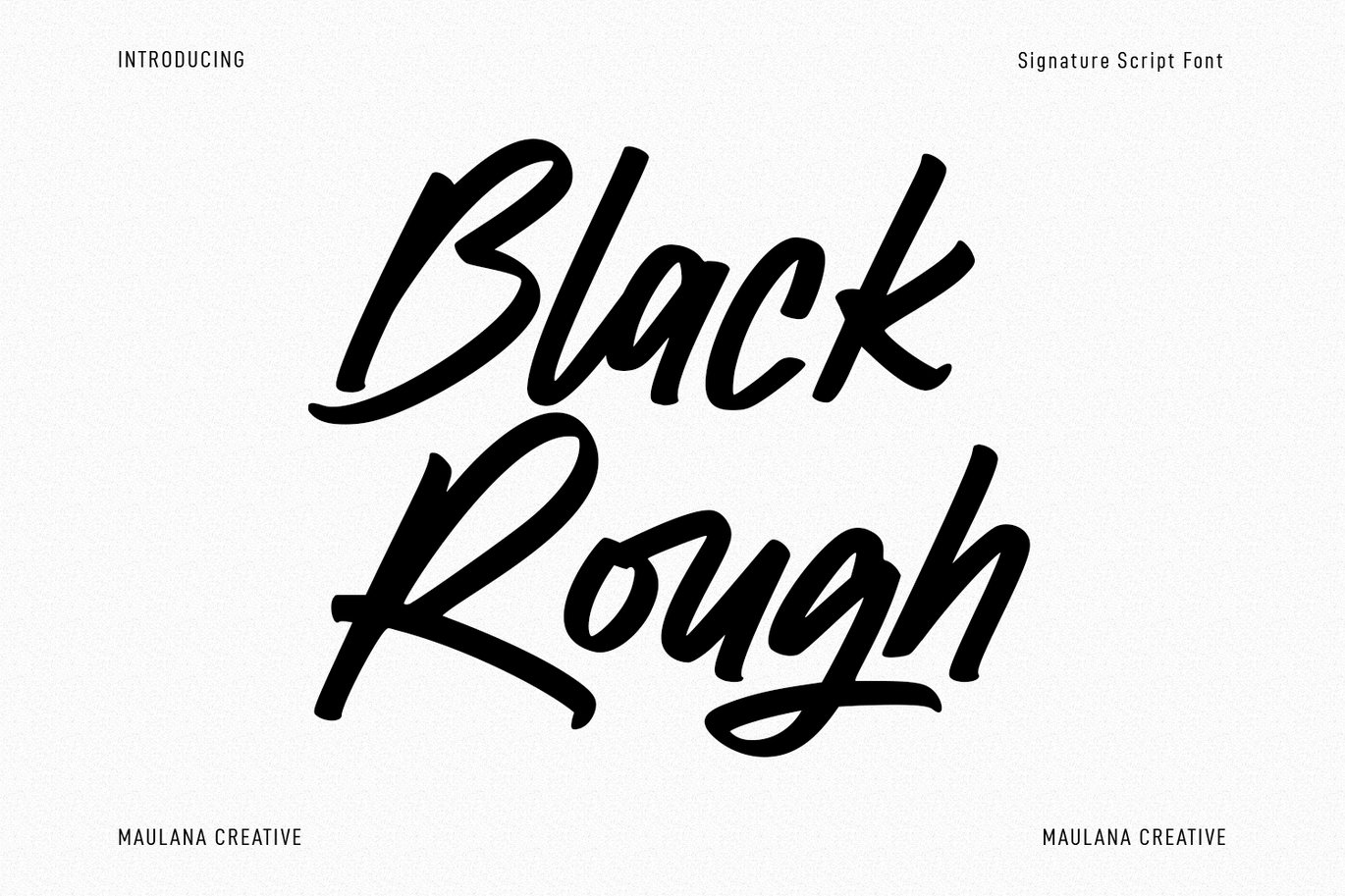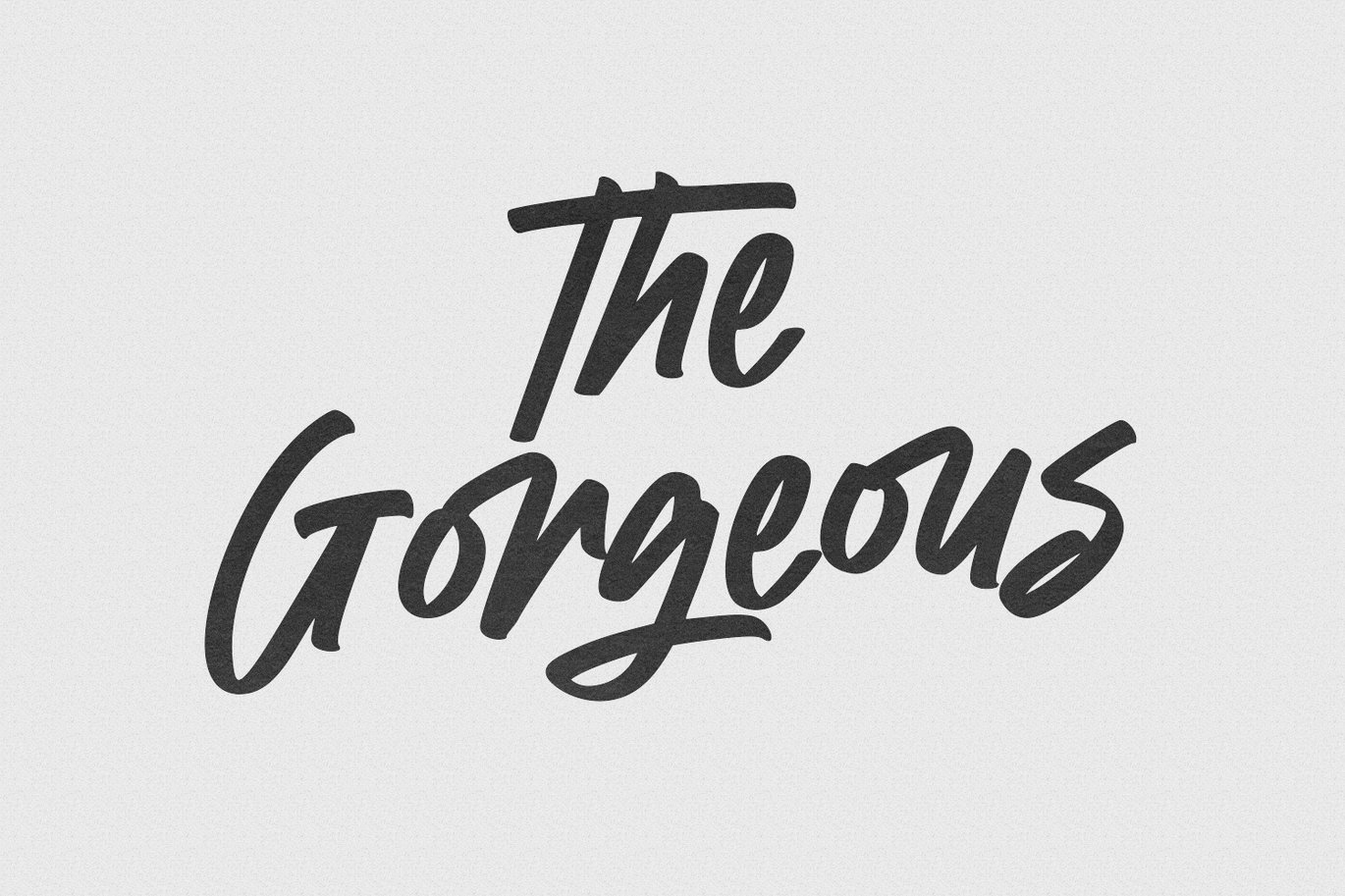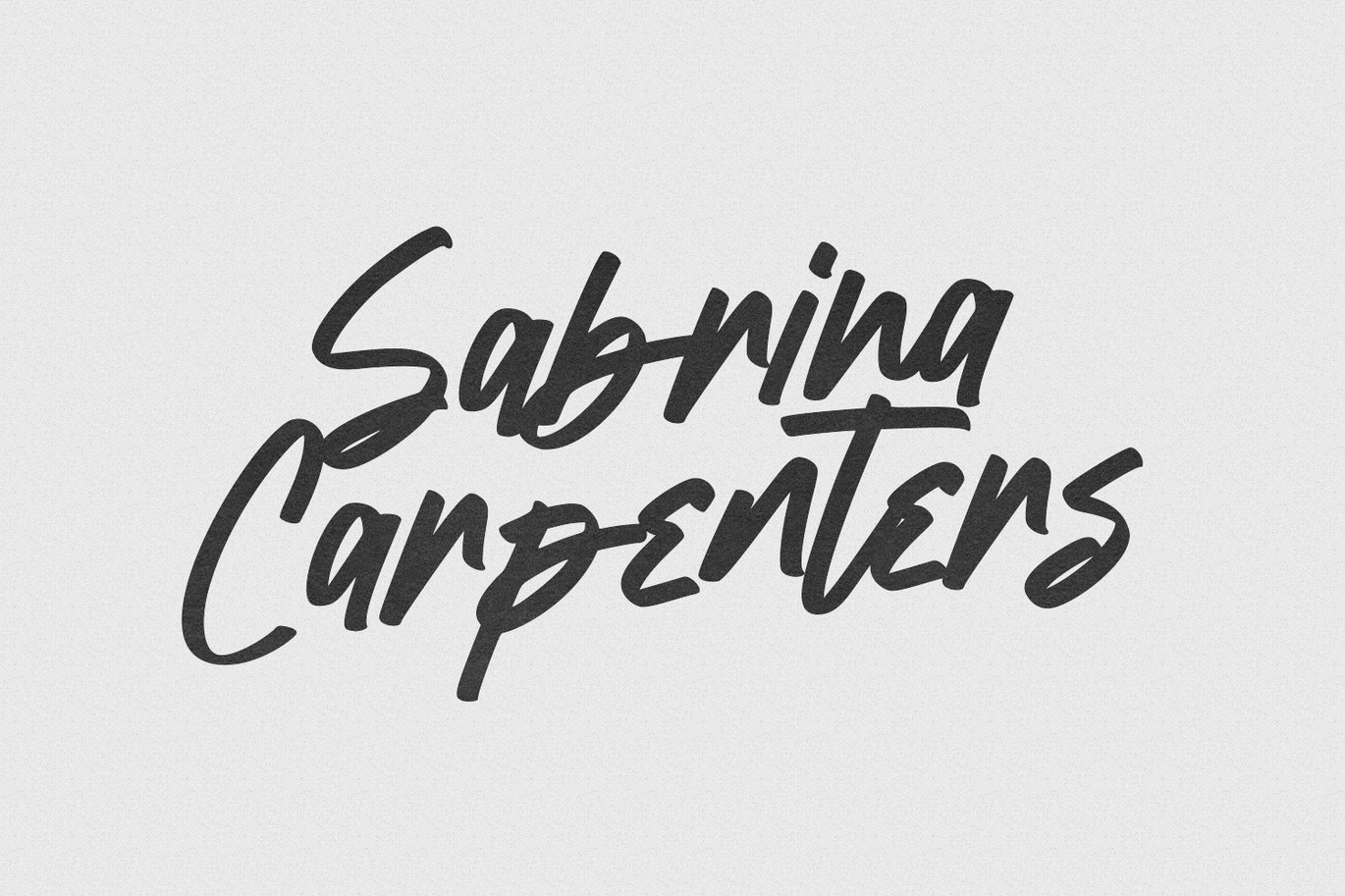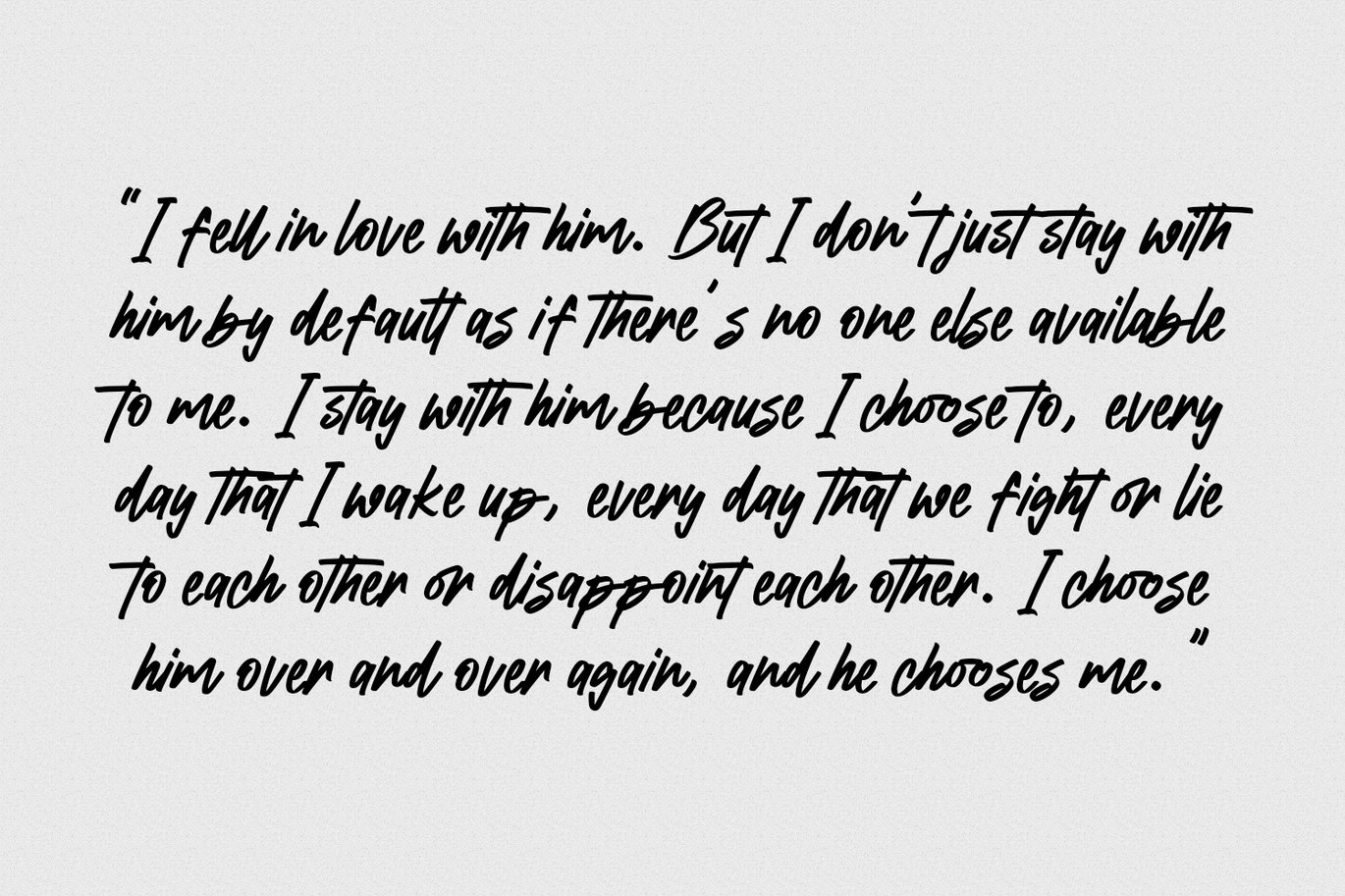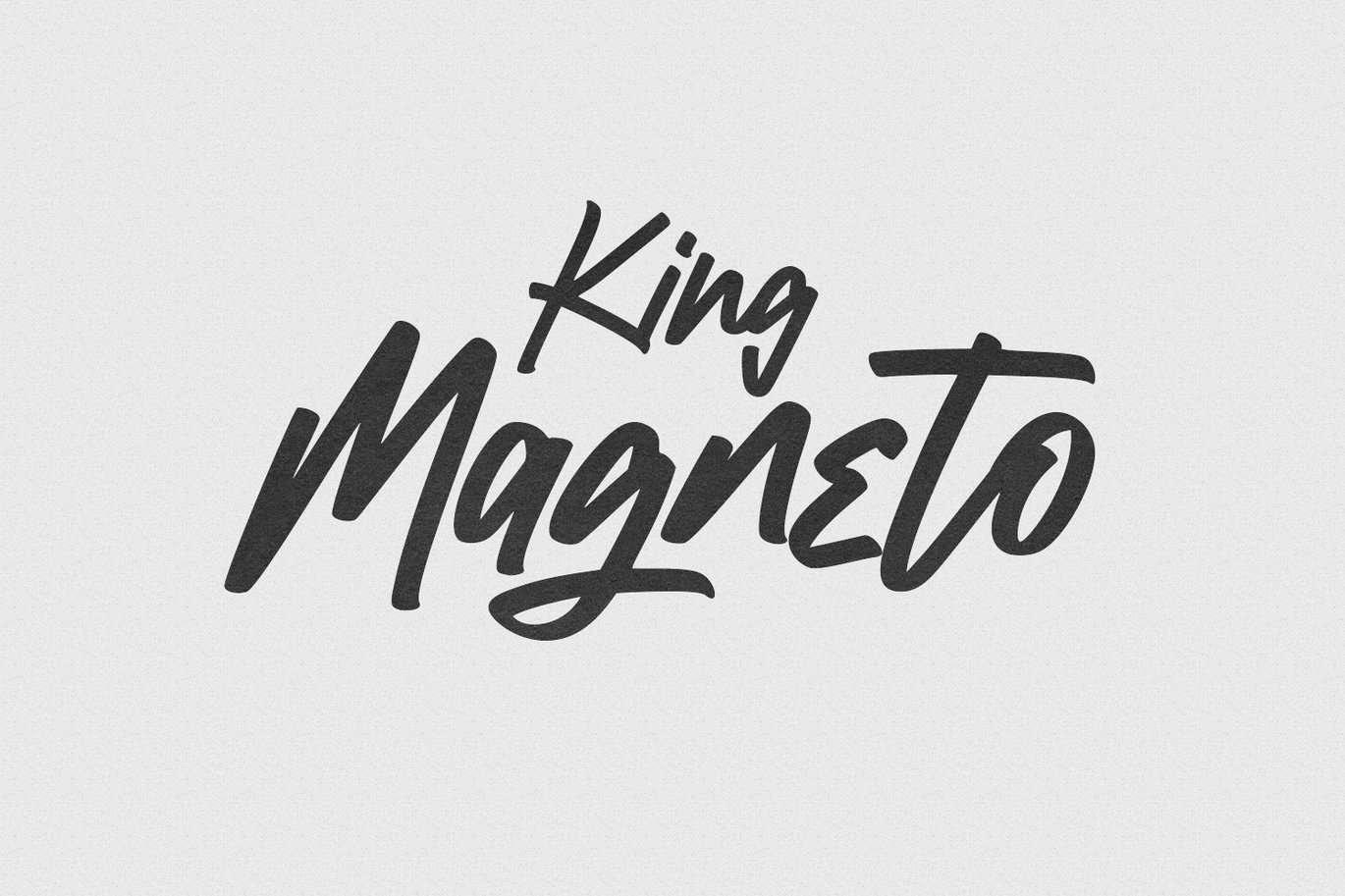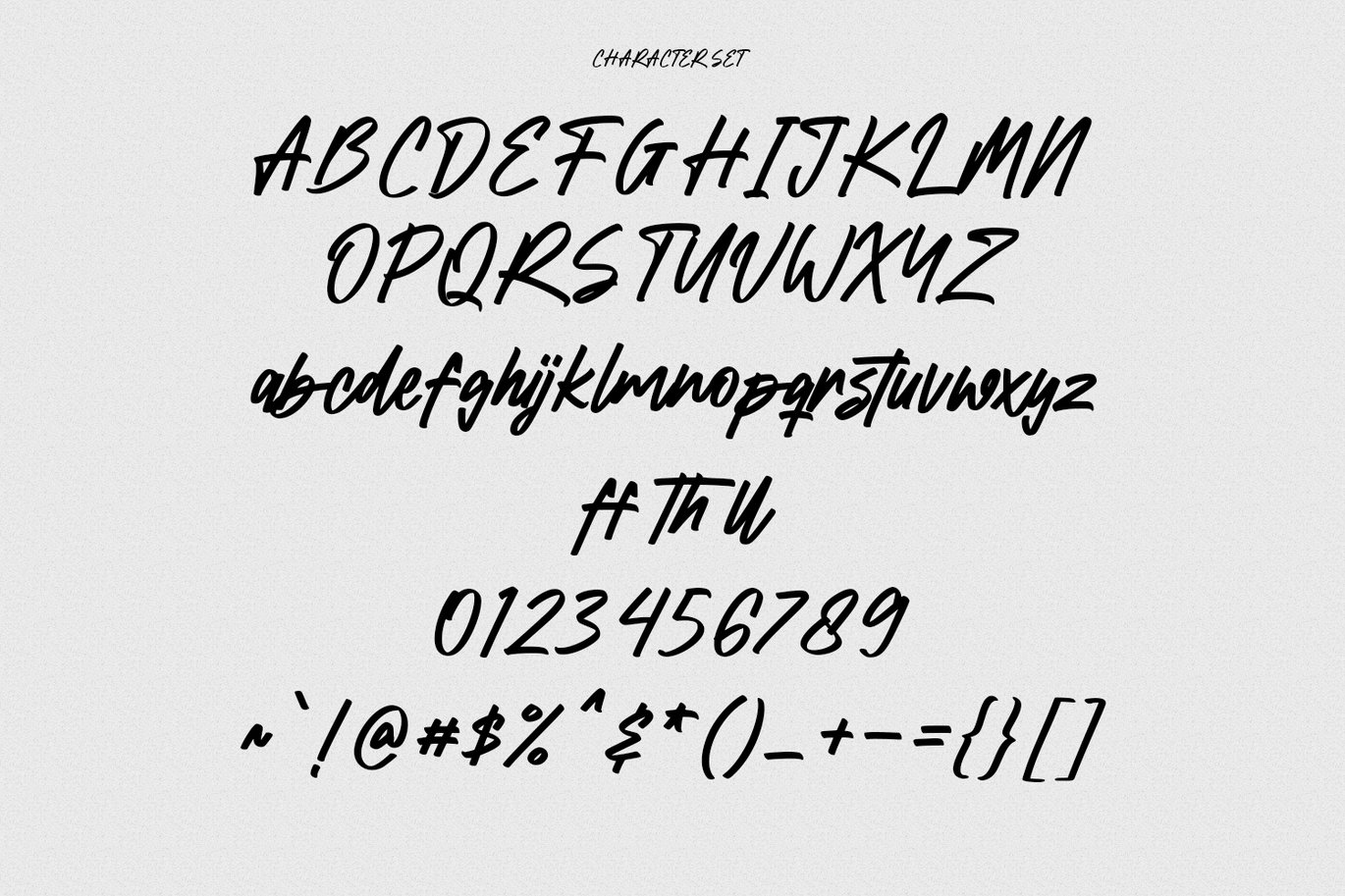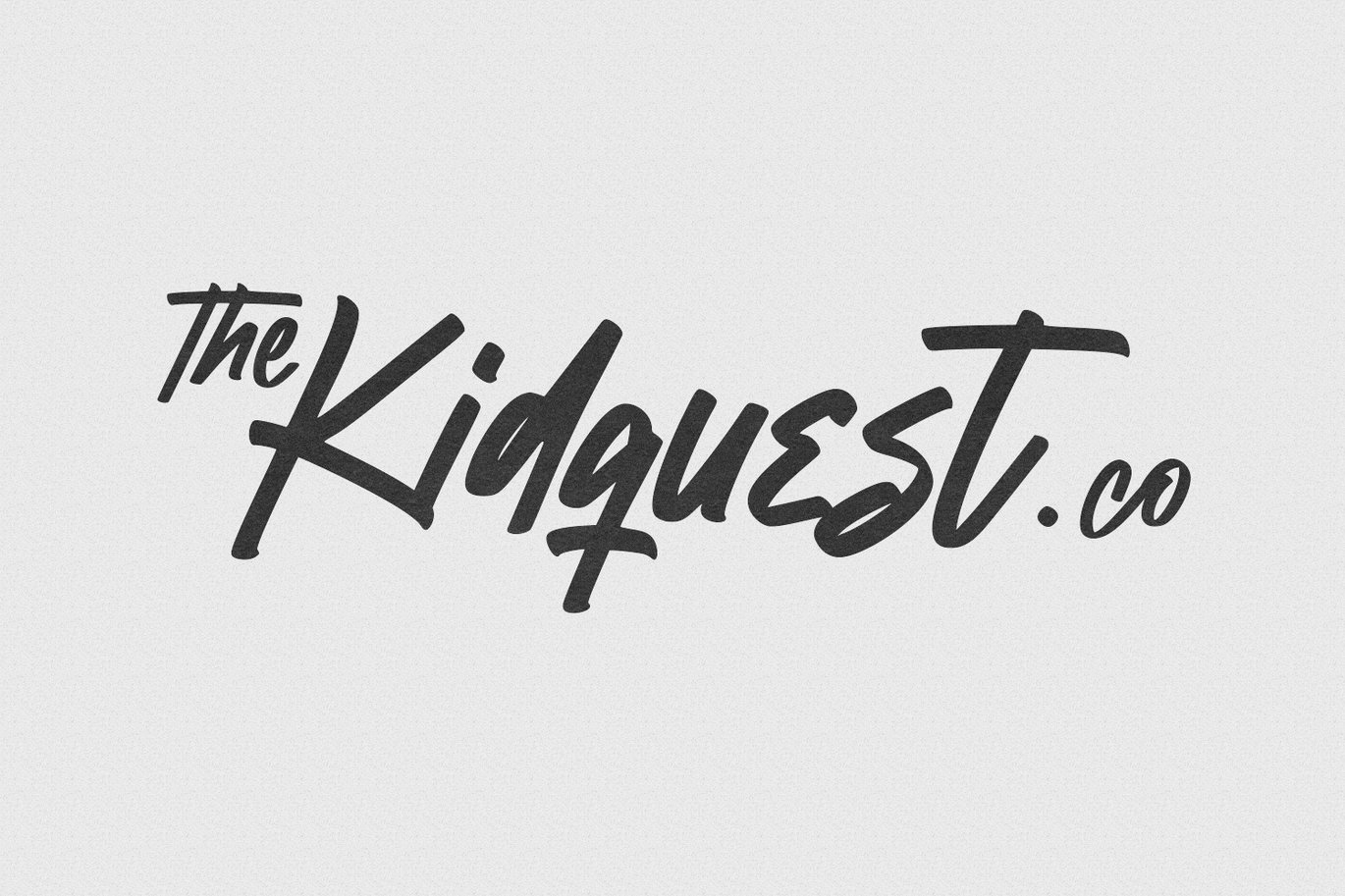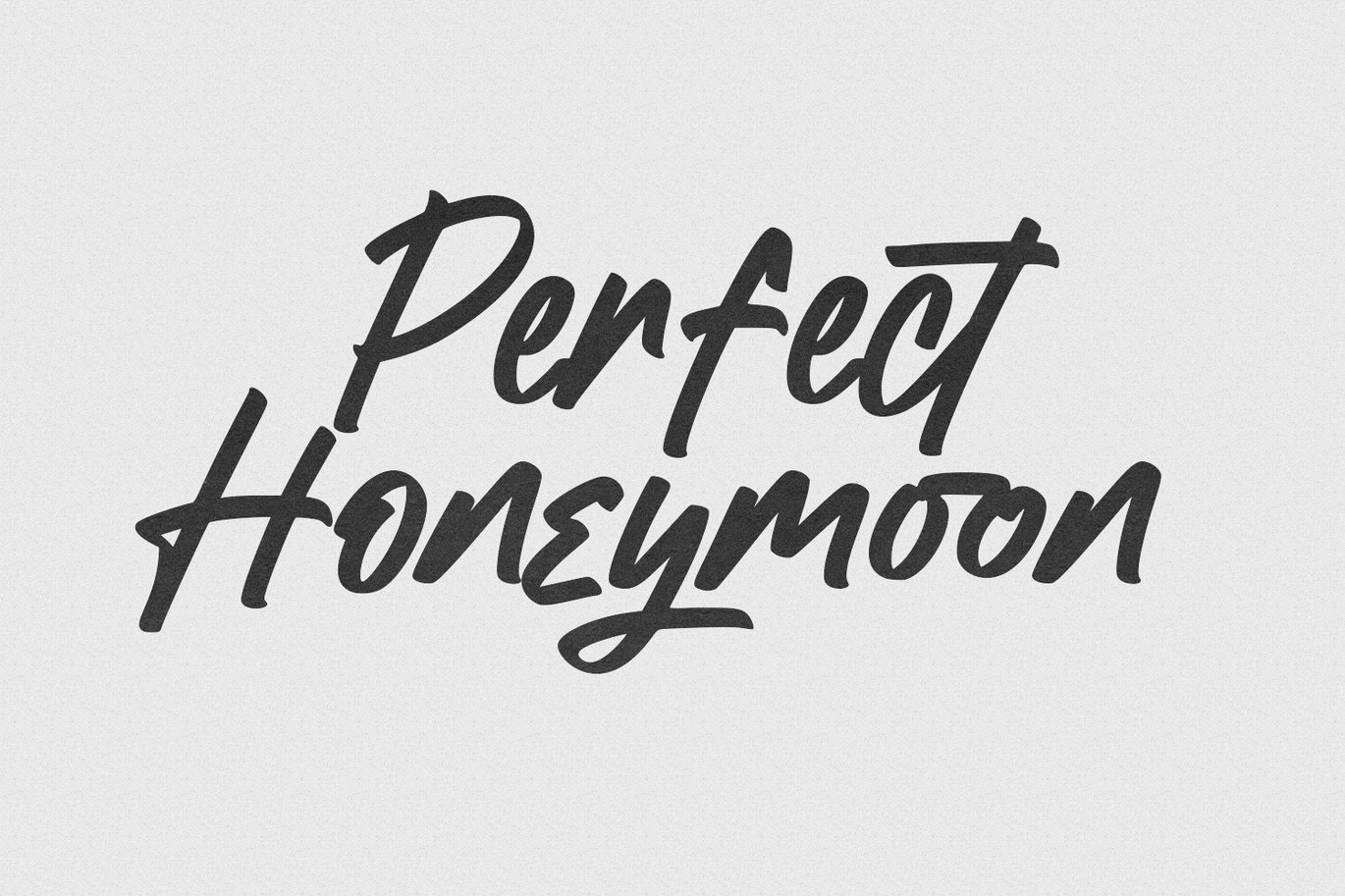
Black Rough Script Font
Black Rough Script Font is a casual signature script font. With semi bold consist stroke, fun character with a bit of ligatures and alternates. To give you an extra creative work. Black Rough Script Font support multilingual more than 100+ language. This font is good for logo design, Social media, Movie Titles, Books Titles, a short text even a long text letter and good for your secondary text font with sans or serif. Make a stunning work with Black Rough Script Font.